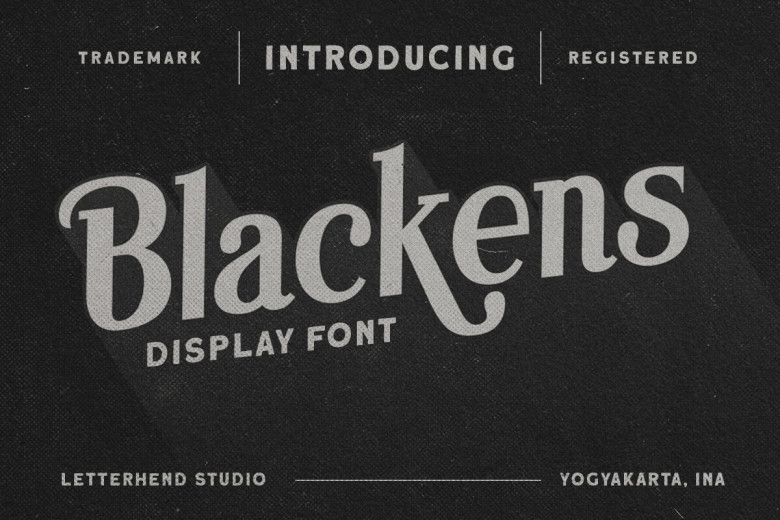
Blackens Font
Blackens is an exhibit serif typeface. With its elegant uppercase style and distinguishable uppercase letters, Blackens stands out as an effective and distinct font suitable for formal designs such as invitations and labels as well as magazines, logos and books; greeting cards, wedding cards packaging fashion make-up stationery novels labels or any kind of advertisement purpose.
Blackens Serif Font